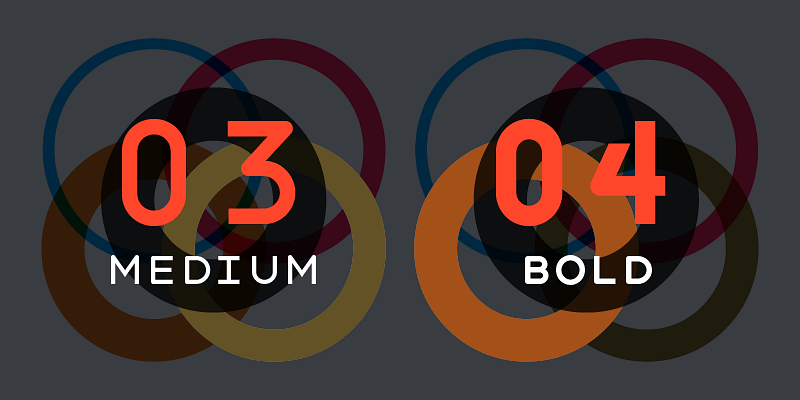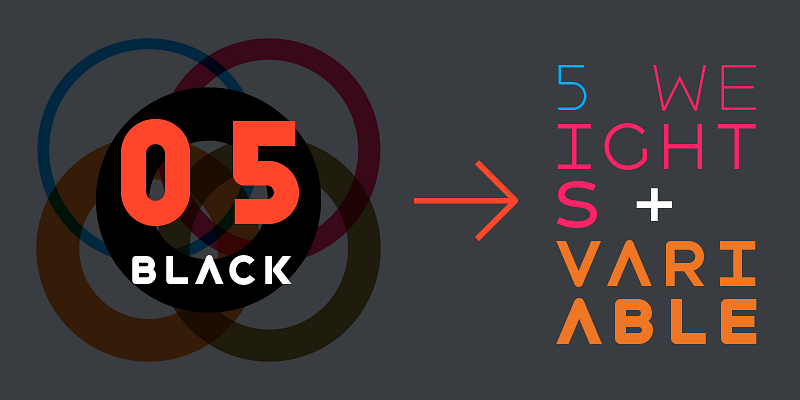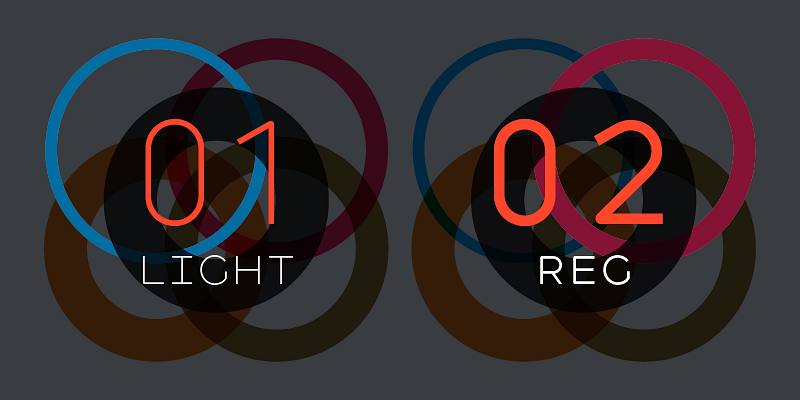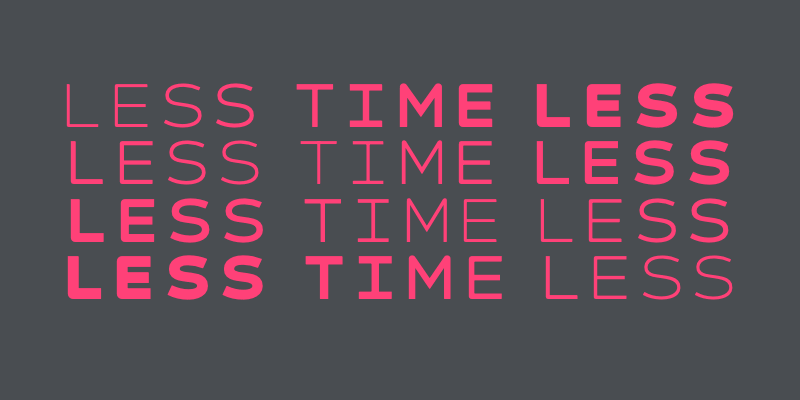
Havelock Titling’s essential idea is “pure geometry with austere spacing.” Square, triangle, circle: each letter is reduced to only its required forms. Joints are rounded to give an aerodynamic sense of motion and to thwart any sense of stiffness that can happen when letters are reduced to basic geometric shapes. Available in 5 weights and as a variable font. Designed by Patric King for XO Type Co.